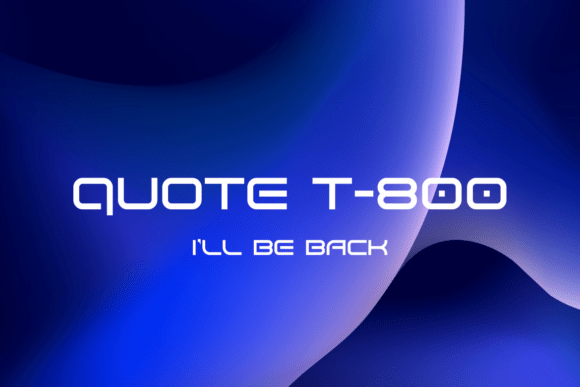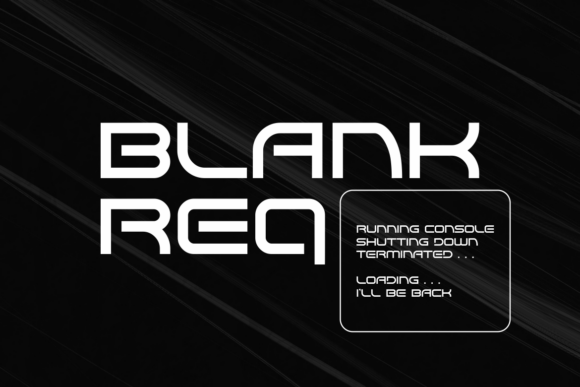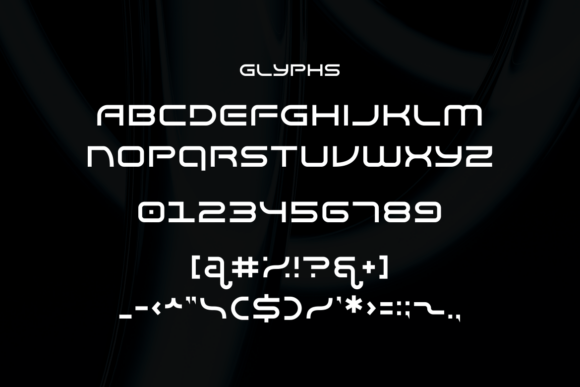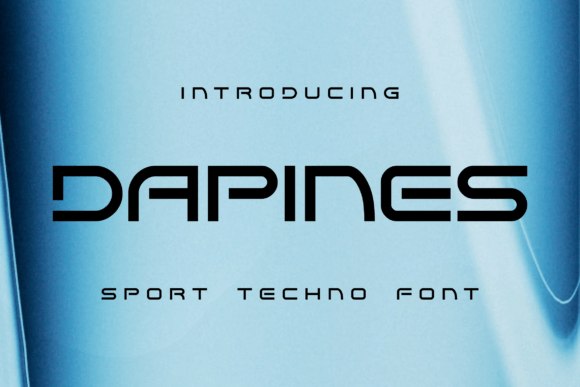
Dapines Font: A Cosmic Journey Through Typography
Are you ready to embark on an intergalactic adventure through the world of typography? Look no further than Dapines Font, a bold and captivating display font that embodies the enigma and majesty of the cosmos. With its unique blend of compelling lines, avant-garde shapes, and dynamic space-age energy, Dapines is the perfect fit for designers and crafters looking to create cutting-edge sci-fi posters, interstellar branding, adventurous gaming titles, and innovation-led designs.
The Inspiration Behind Dapines
Dapines Font is a typeface crafted with elements of a distant galaxy – pulsating, audacious, and seething with motion. Its design is inspired by the mysteries of the cosmos, with a focus on capturing the essence of a bold nebula impression. The result is a font that is not only visually stunning but also evokes a sense of adventure and exploration.
Key Features of Dapines Font
So, what makes Dapines Font so unique? Here are some of its key features:
- Bold and Compelling Lines: Dapines Font features bold and compelling lines that give it a sense of energy and movement.
- Avant-Garde Shapes: The font’s avant-garde shapes add a touch of futurism and innovation to any design.
- Dynamic Space-Age Energy: Dapines Font has a dynamic space-age energy that makes it perfect for designs that require a sense of adventure and exploration.
Perfect for Sci-Fi and Gaming Designs
Dapines Font is a perfect fit for designers and crafters working on sci-fi and gaming projects. Its unique blend of bold lines, avant-garde shapes, and dynamic energy makes it ideal for:
- Sci-Fi Posters: Create eye-catching posters that transport your audience to another galaxy.
- Interstellar Branding: Develop a brand identity that is out of this world with Dapines Font.
- Adventurous Gaming Titles: Add a touch of excitement and adventure to your gaming titles with this bold and captivating font.
Why Choose Dapines Font?
So, why choose Dapines Font for your next design project? Here are just a few reasons:
- Unique and Eye-Catching: Dapines Font is a one-of-a-kind typeface that will make your designs stand out from the crowd.
- Versatile: This font can be used for a wide range of design projects, from posters and branding to gaming titles and innovation-led designs.
- Crafted with Care: Dapines Font is crafted with care and attention to detail, ensuring that it meets the highest standards of typography.
Dapines Font is more than just a font – it’s a journey through the cosmos. With its bold and captivating design, this font is perfect for designers and crafters looking to create cutting-edge sci-fi posters, interstellar branding, adventurous gaming titles, and innovation-led designs. So why wait? Embark on an intergalactic adventure through typography with Dapines Font today!
Get Ready to Explore the Cosmos with Dapines Font